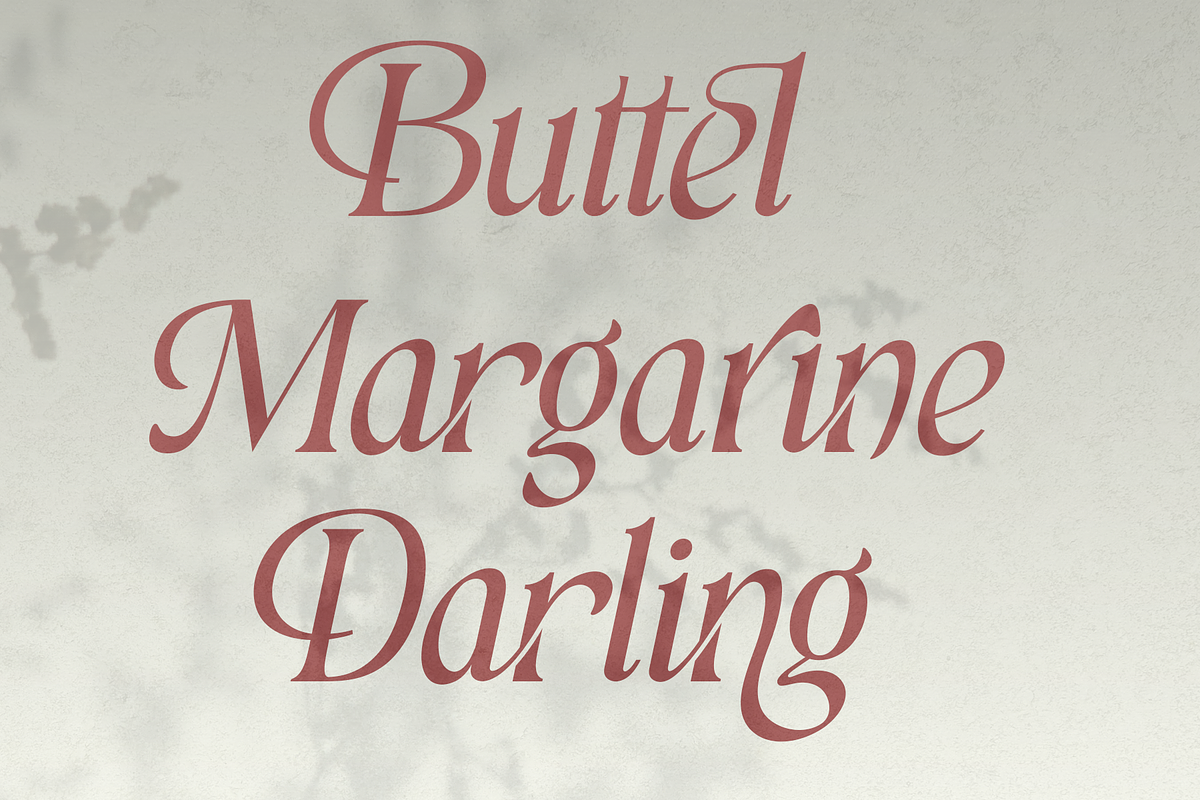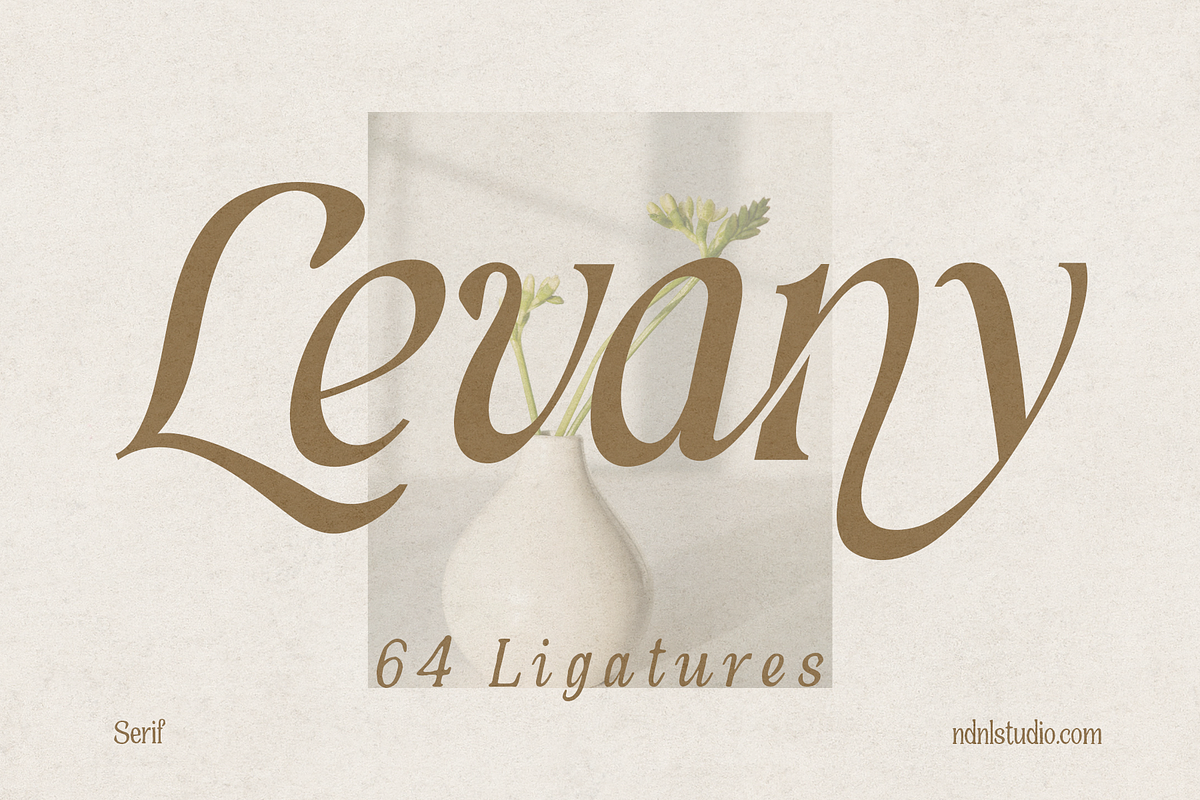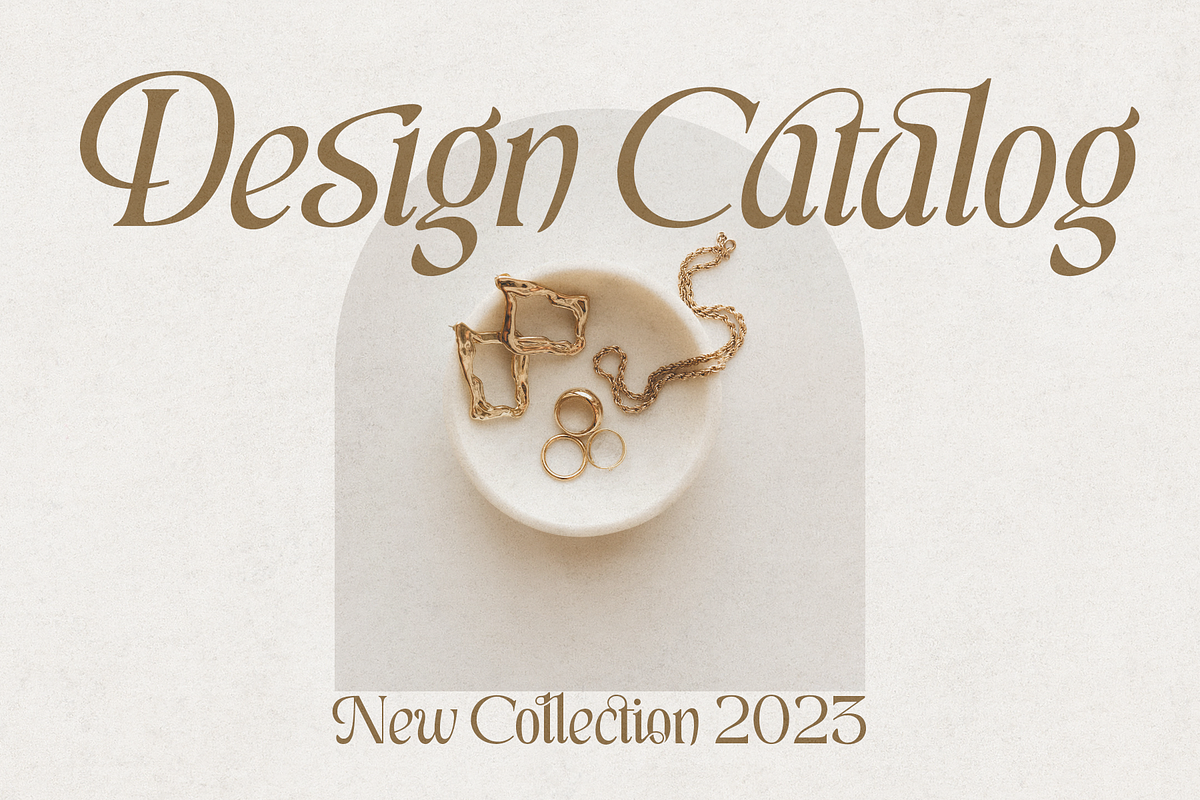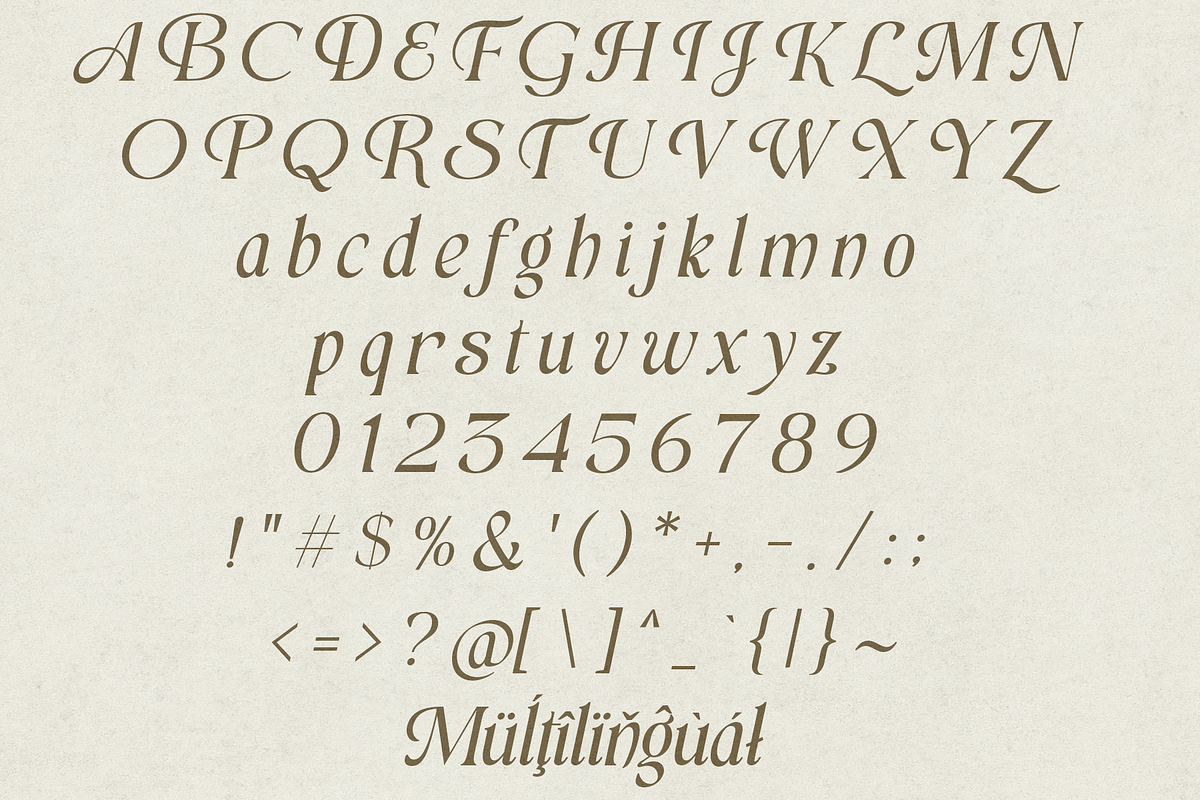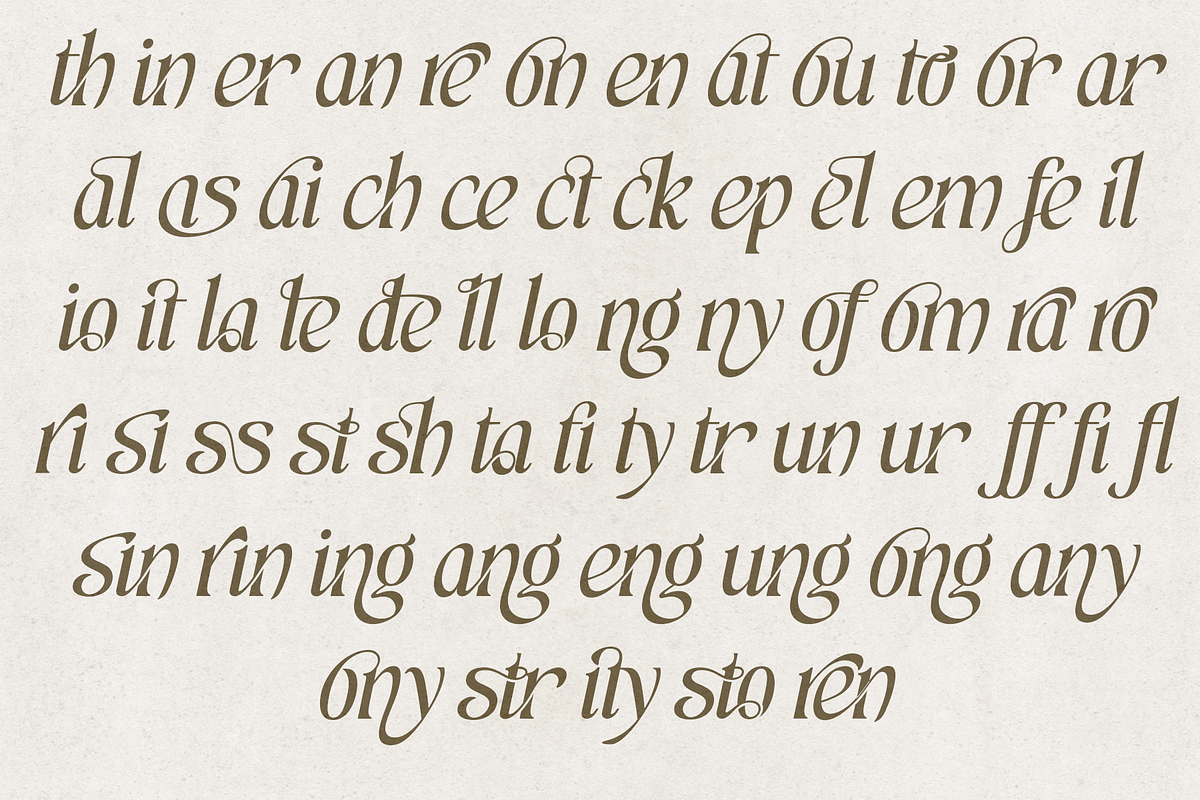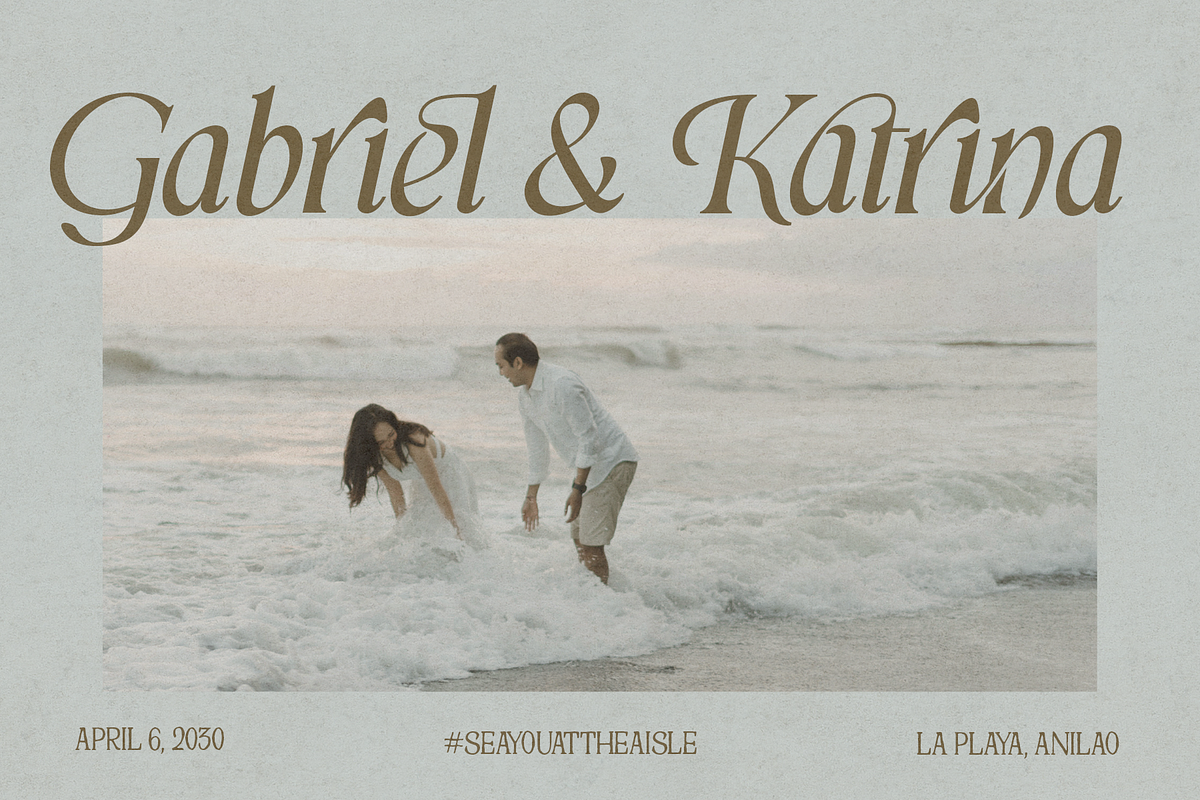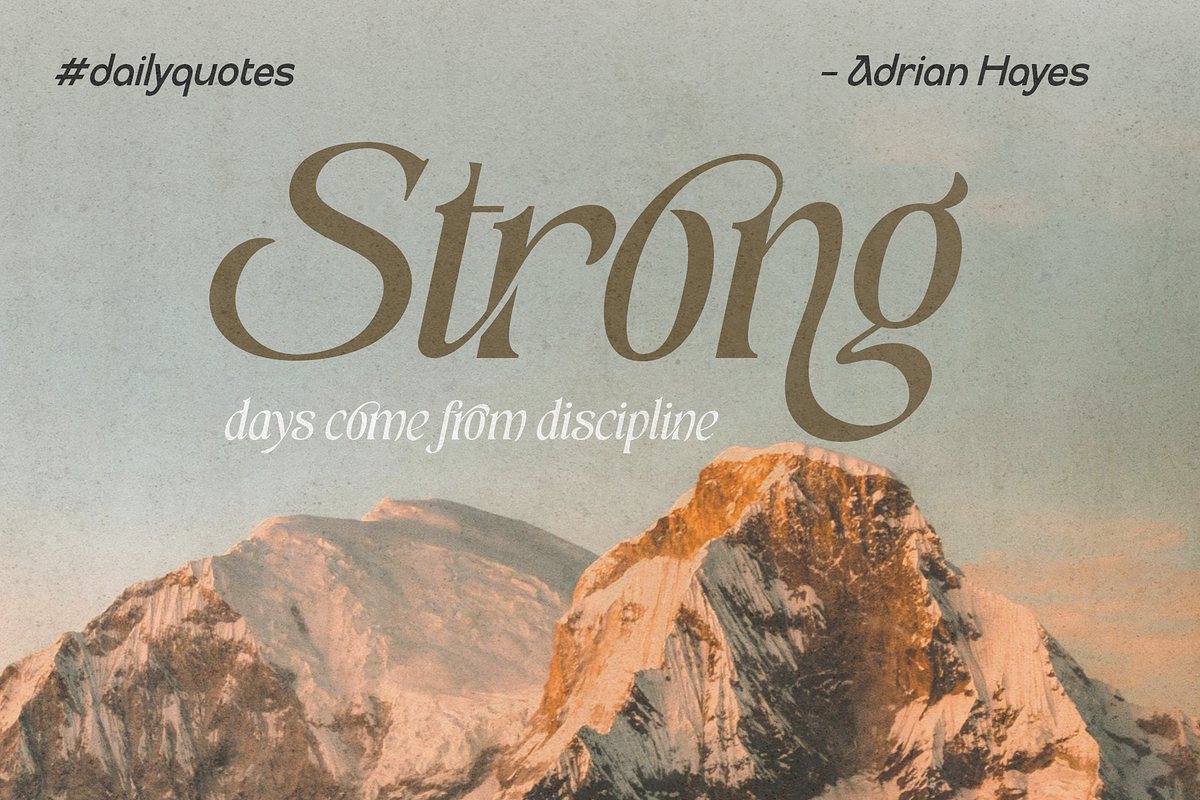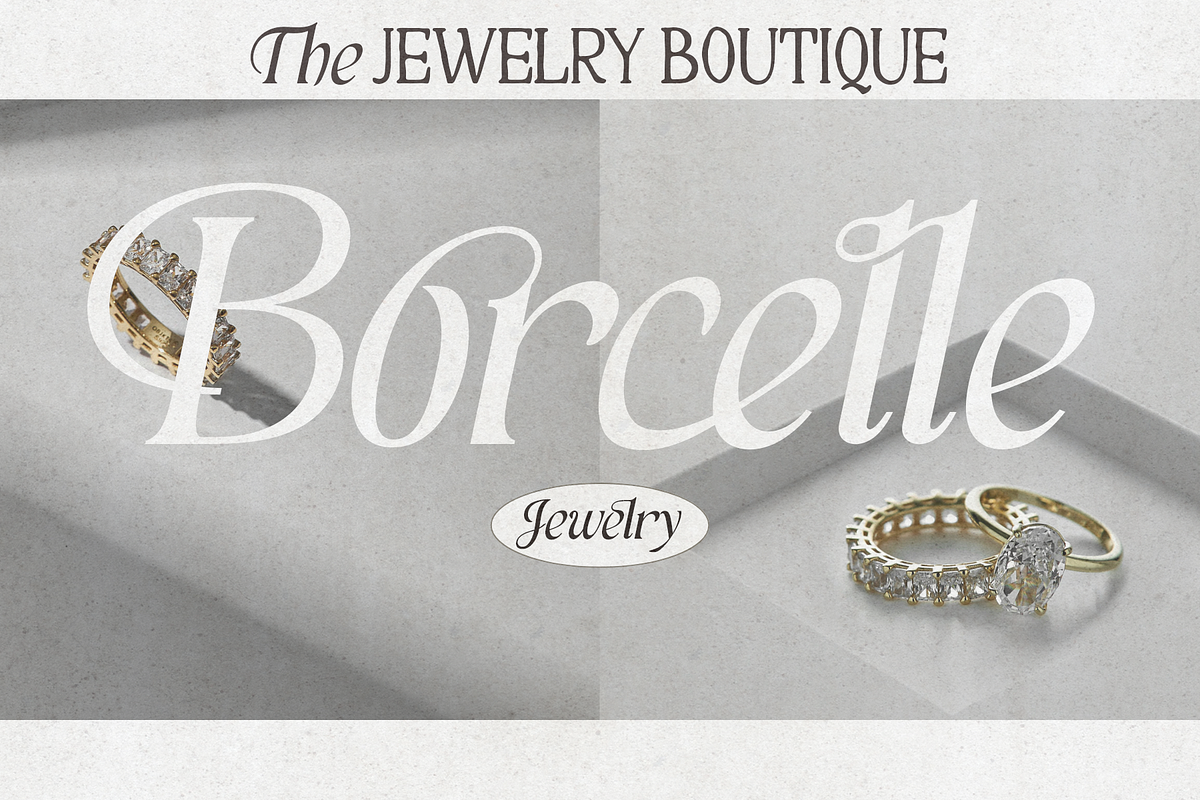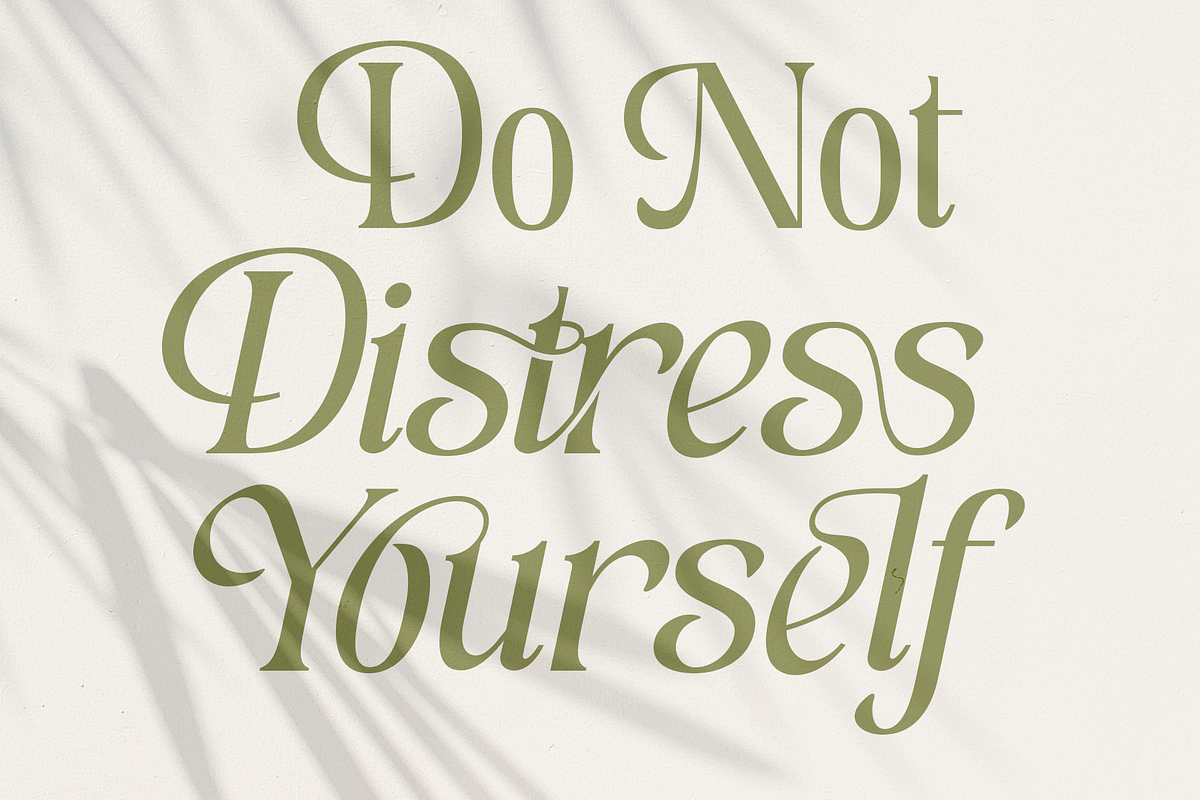
Levany - Serif Font
Levany is a refined serif typeface that blends timeless elegance with contemporary sophistication. Featuring graceful curves, delicate contrast, and beautifully crafted letterforms, it is designed to bring warmth and personality to every word.
With 64 thoughtfully designed ligatures, Levany creates a seamless and natural flow, giving your typography a distinctive handcrafted appearance while maintaining excellent readability.
Whether you’re creating luxury branding, editorial layouts, wedding stationery, cosmetic packaging, fashion campaigns, or social media content, Levany delivers a graceful balance between classic beauty and modern style.
– Character set A-Z
– Uppercase & Lowercase
– Numerals & Punctuation
– Accented Characters (West Europe)